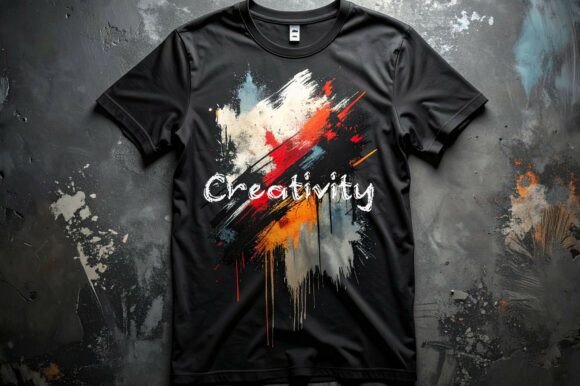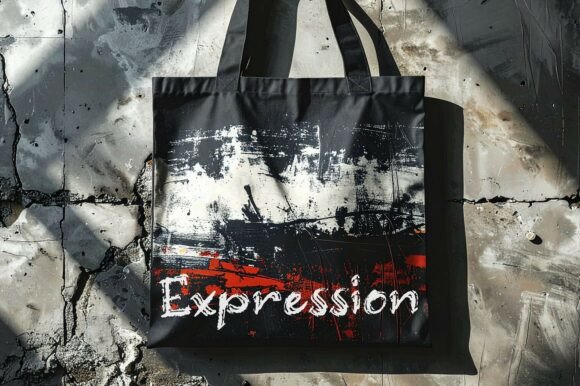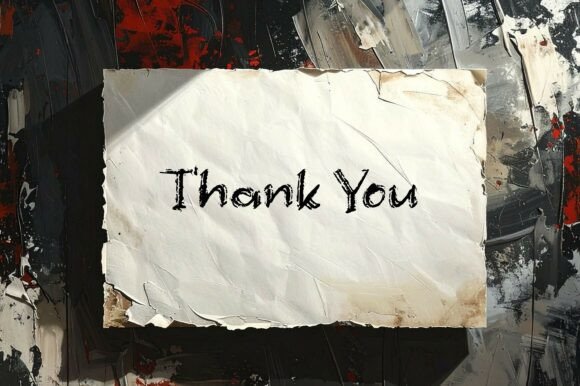
Unleash Your Creativity with Beludru Font: The Ultimate Expression of Artistic Chaos
In the world of typography, few fonts manage to capture the essence of raw creativity and unbridled energy. Beludru Font is one such exceptional typeface that embodies the spirit of artistic rebellion. This explosive and highly expressive brush font is designed to channel untamed energy and chaos, making it the perfect choice for designers and crafters who want to break free from convention and push the boundaries of visual expression.
The Unique Characteristics of Beludru Font
Beludru Font stands out from the crowd with its intensely distressed appearance and aggressive, yet artistic, letterforms. Each character is crafted with dynamic, textured strokes that capture the essence of a paint splash or a rough brushstroke. The irregular edges, varying line weights, and spontaneous feel give it a gritty, urban edge, perfect for projects that demand attention and convey a powerful, no-holds-barred attitude.
One of the key features that make Beludru truly special is its handmade and authentic feel. This font feels like it was crafted by an artist, with each letterform bearing the imperfections and uniqueness of a hand-painted piece. The result is a strong, rebellious voice that adds a touch of raw energy to your visuals.
What Makes Beludru Font Different?
So, what sets Beludru Font apart from other typefaces? Here are a few key factors that make it a standout choice for designers and crafters:
- Dynamic Texture: Beludru’s textured strokes give it a unique, organic feel that’s perfect for designs that require a raw, edgy look.
- Aggressive yet Artistic: The font’s letterforms are both bold and artistic, making it ideal for projects that demand attention and convey a powerful attitude.
- Handmade and Authentic: Beludru’s handmade feel adds a touch of authenticity to your designs, making them stand out from the crowd.
- Comprehensive Character Set: The font includes a comprehensive set of uppercase and lowercase letters, numerals, and standard punctuation glyphs, making it fully compatible with design tools.
What’s Included with Beludru Font?
When you download Beludru Font, you can expect to find a comprehensive set of characters that will help you bring your creative vision to life. Here’s what you can expect:
- Uppercase and Lowercase Letters: A full set of uppercase and lowercase letters, perfect for crafting bold headlines or expressive body text.
- Numerals: A set of numerals that match the font’s unique style, ideal for adding a touch of edginess to your designs.
- Standard Punctuation Glyphs: A range of standard punctuation glyphs, ensuring that you’re fully equipped to create professional-grade designs.
Beludru Font is the perfect choice for designers and crafters who want to add a touch of raw energy to their projects. Whether you’re working on a bold advertising campaign, a rebellious fashion brand, or a DIY craft project, this font is sure to make a statement.
Here are a few project ideas that Beludru Font would be perfect for:
- Advertising Campaigns: Use Beludru Font to create bold, attention-grabbing headlines that demand attention.
- Fashion Brands: Add a touch of edginess to your fashion brand with Beludru Font’s unique, rebellious style.
- DIY Craft Projects: Use Beludru Font to add a personal touch to your DIY craft projects, such as handmade cards, posters, or flyers.
In conclusion, Beludru Font is a game-changing typeface that’s perfect for designers and crafters who want to unleash their creativity and add a touch of raw energy to their projects. With its unique, textured strokes, aggressive yet artistic letterforms, and comprehensive character set, Beludru Font is the ultimate expression of artistic chaos. So why settle for ordinary fonts when you can make a statement with Beludru?